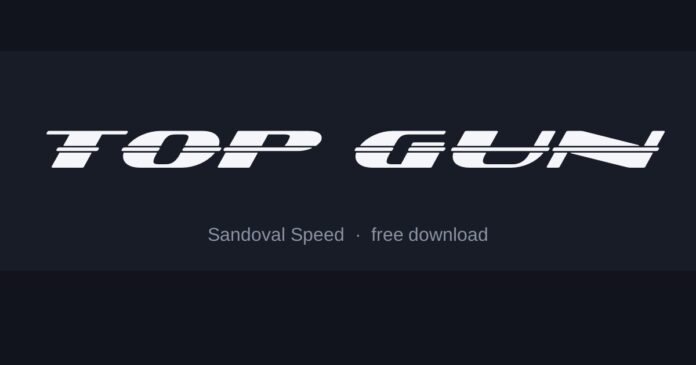
Top Gun Font
What font is the Top Gun logo?
Custom lettering: heavy italic capitals with a forward lean and a hard horizontal cut across the terminals, designed to read like something stencilled on a fuselage.
The 2022 sequel reused the same mark almost unchanged, which is unusual and makes the target easier to hit.
The fonts here
• Sandoval Speed is the closest — a fast italic with the same forward pull and flat cuts.
• Mesmerize Ex Bd It is the wide bold italic of a geometric family, cleaner and more corporate.
• Motorcade leans harder and reads more like motorsport, useful when you want the speed without the military.
Where the style comes from
Military aircraft markings are stencilled, which forces flat terminals and simple shapes, and the italic lean is a graphic-design addition that suggests motion without needing an illustration.
Combining the two — stencil bluntness with an aggressive slant — is the whole trick, and it is why a plain italic sans never quite works.
Setting it well
• Lean it further than feels comfortable; a gentle italic reads as a typo rather than a design choice
• Set it in capitals with tight spacing, then add a thin horizontal rule above and below
• Gold or off-white on navy is closer to the poster than pure white on black
Is this the exact font used for Top Gun?
Not exactly. The original lettering was custom drawn or is not publicly licensed, so the fonts here are close recreations. Sandoval Speed is the nearest match we have found.